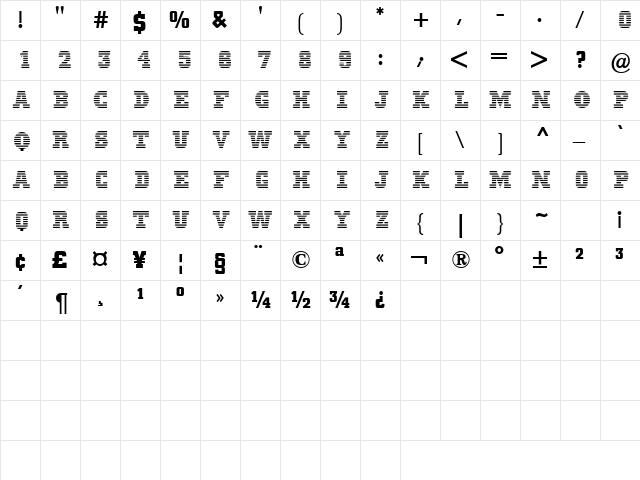
MeninBlue Regular
| Foundry | Digital Empires Inc. |
| Designer | Steve Tune |
Design Context for MeninBlue Typeface
MeninBlue takes a measured approach to typography — its balanced proportions and neutral character make it a reliable workhorse for both digital and print work.